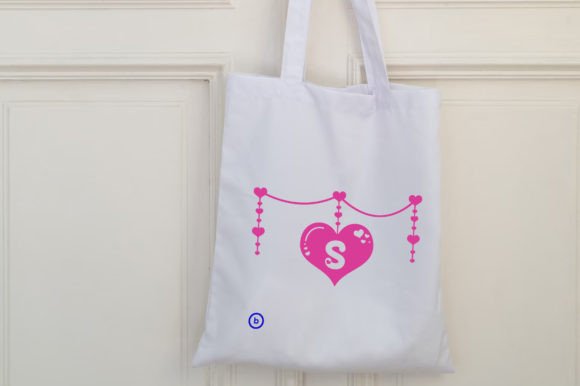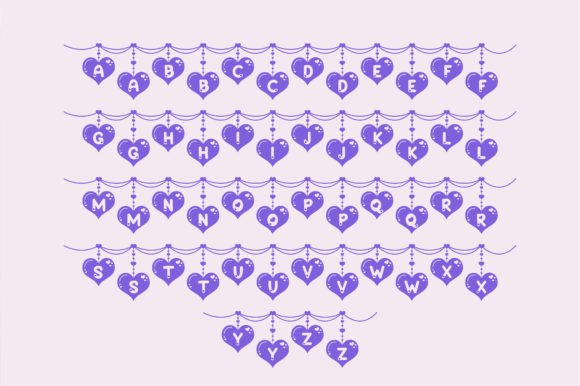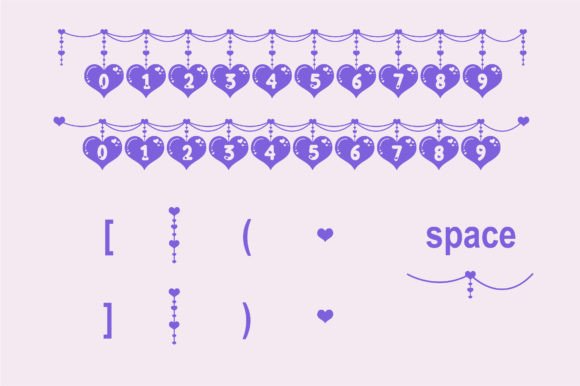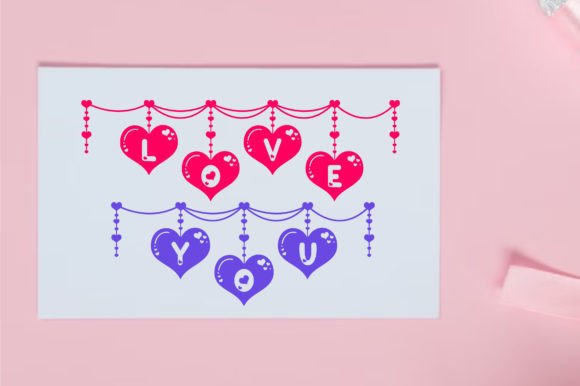
Introduction to Love Link Extra Font
As a designer, you’ve probably found yourself stuck on a creative project, searching for the perfect font to convey the emotions and feelings you want to express. Perhaps it was a late-night brainstorming session, scrolling through font collections, or browsing design inspiration websites. Suddenly, a spark of inspiration strikes, and you stumble upon the perfect font – Love Link Extra Font. This charming string of hearts, connected by ornamental links, is the epitome of romance and whimsy.
Key Features of Love Link Extra Font
- High-quality design resource for creative projects: The Love Link Extra Font is a well-crafted font that can elevate your designs and add a touch of elegance.
- Unique characteristics: The font features a unique and playful style, making it an excellent choice for designers looking to add a touch of whimsy to their creative project.
Honest Review: Love Link Extra Font
- ✨ The font has a transparent background, making it perfect for use on light or dark backgrounds.
- ✨ The font’s design is modern and sleek, making it ideal for use in a variety of creative projects, from logos to graphics.
- ⚠️ The font’s character set is limited, which may not be suitable for projects that require a wide range of characters.